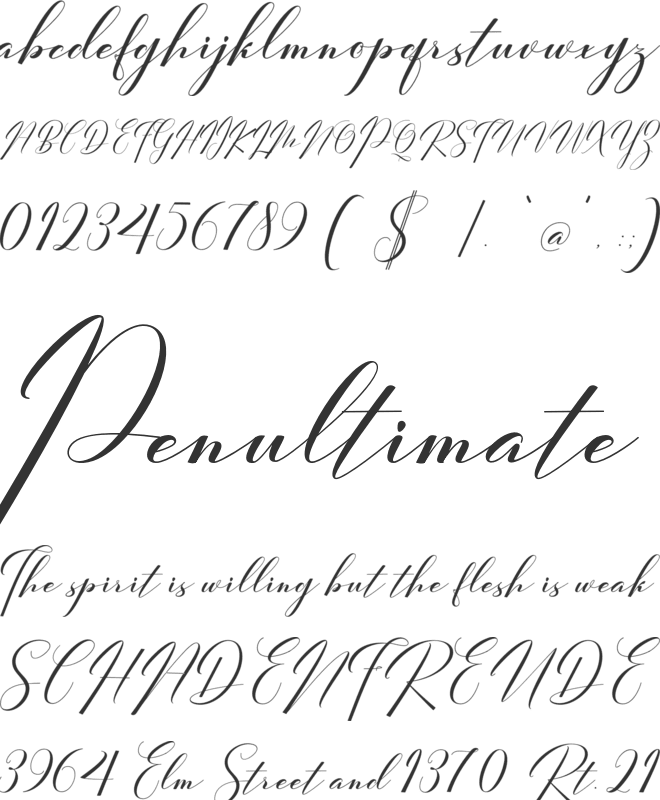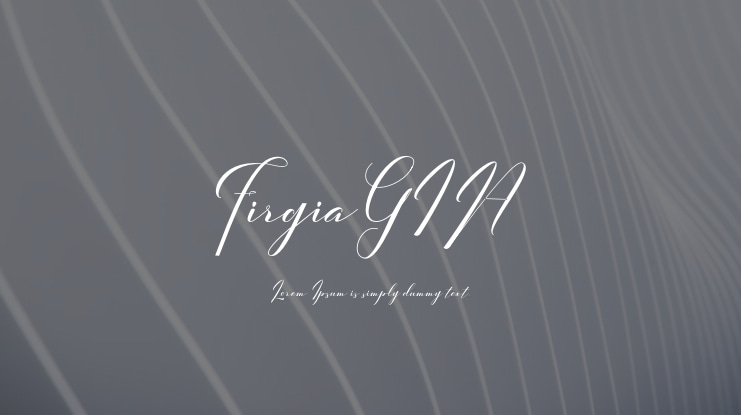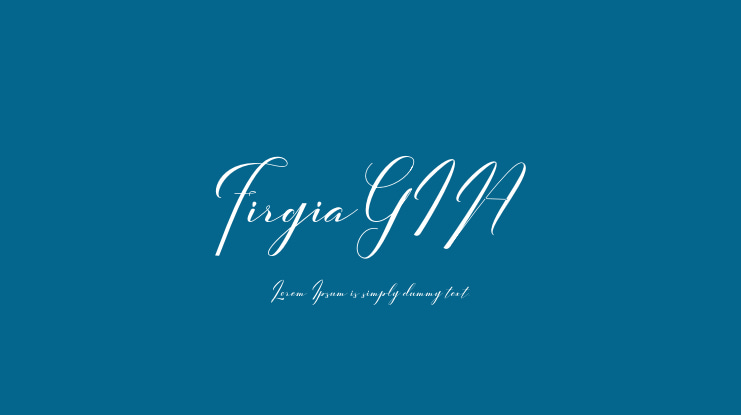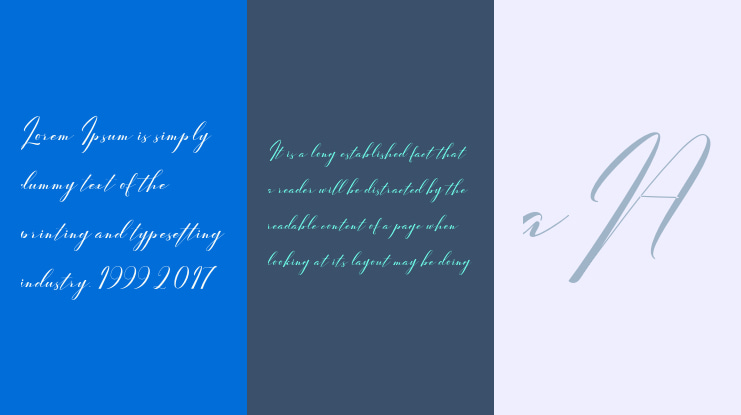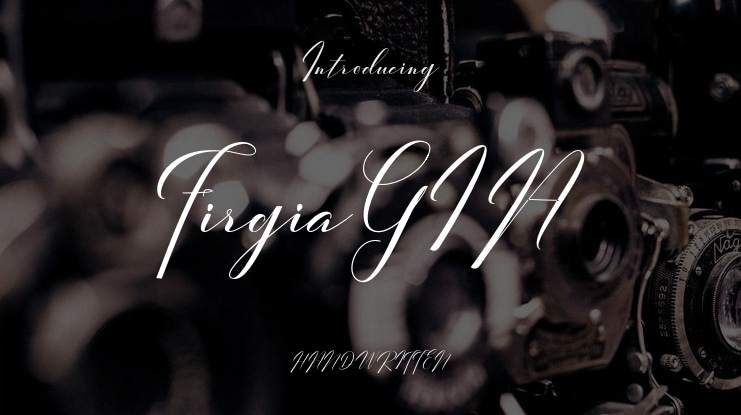
FirgiaGIA Font
FirgiaGIA, a work that is purely hand-written, has natural characteristics. It's perfect for invitations, signatures, blogs, social media, business cards, product brands.
FirgiaGIA is a simple font that has Stylistic, Stylistic Alternative. and includes uppercase and lowercase letters, numbers and punctuation.